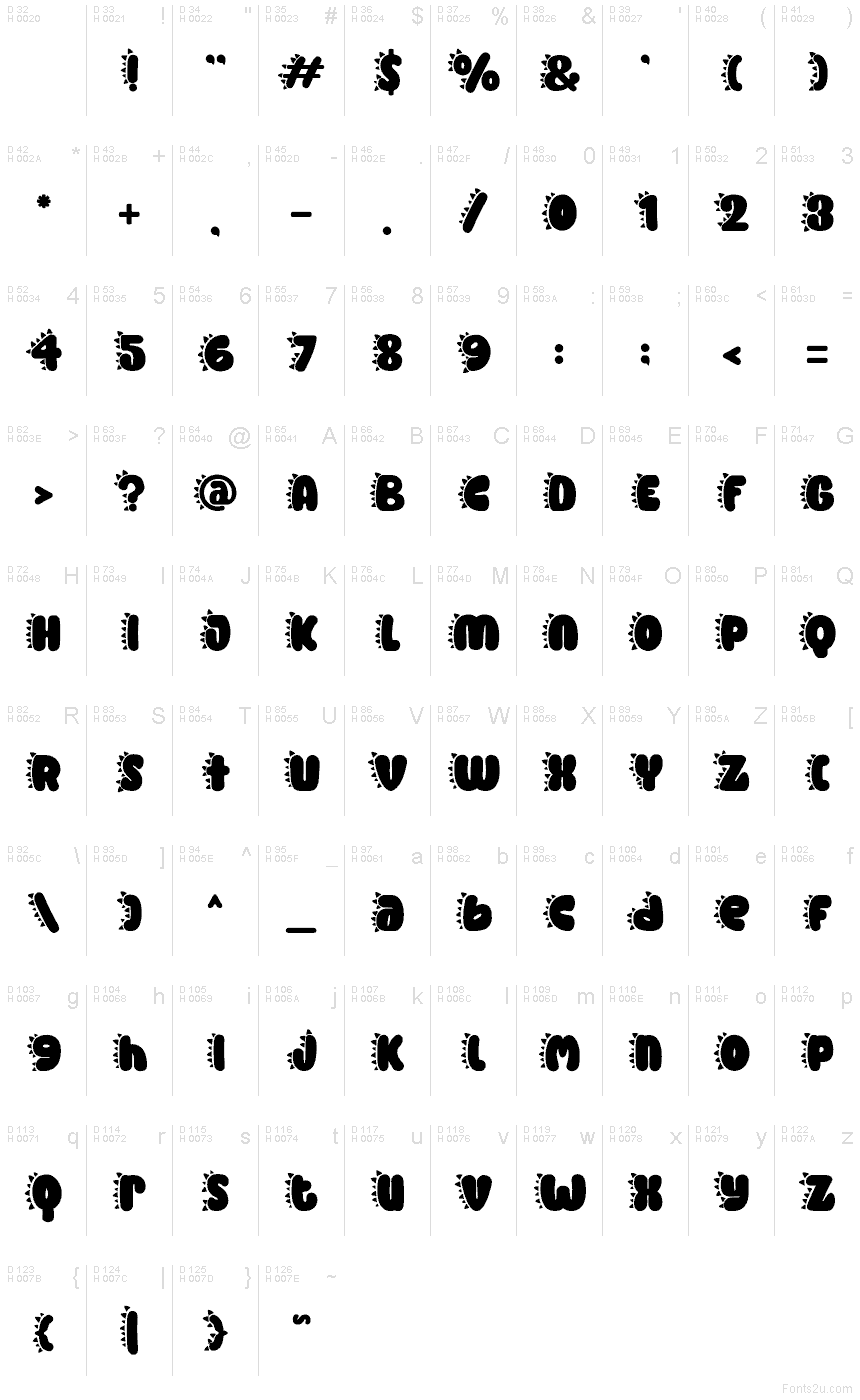
Monster Mash Dino 1
Monster Mash Dino 1 font by PutraCetol Studio is a free display-font with grunge-inspired elements in a cartoonish decorative style. The bold font carries unusual curves and wheels inspired by dinosaurs mixed with surfing boards and rounded lines for characters. It has a stared look combined with a child-like drawing vibe.